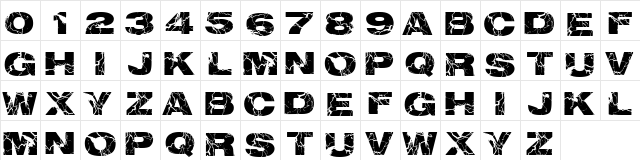
electrical Regular Font Preview
electrical Regular
electrical Regular Font Details
| Foundry | xerographer.com |
| Designer | max infeld |
Design Context for electrical Typeface
electrical channels digital-age aesthetics through its sharp, structured letterforms — ideal for brands that want to signal innovation.